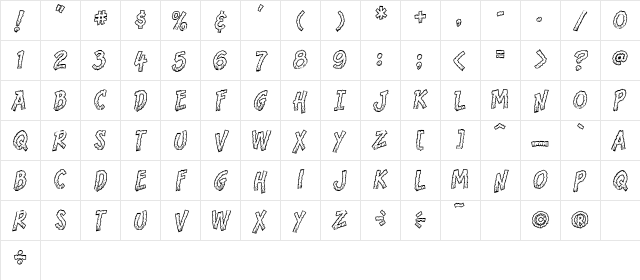
CC Bronto Burger Well Done Free Font
CC Bronto Burger Well Done
Style: Well Done
Design Context for CC Bronto Burger
CC Bronto Burger is a composed and adaptable typeface that performs quietly and consistently across a wide range of design contexts.